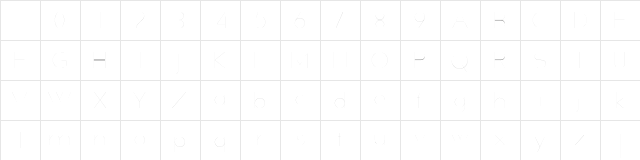
Slim Extreme Regular
Design Context for Slim Extreme Typeface
Slim Extreme takes a measured approach to typography — its balanced proportions and neutral character make it a reliable workhorse for both digital and print work.